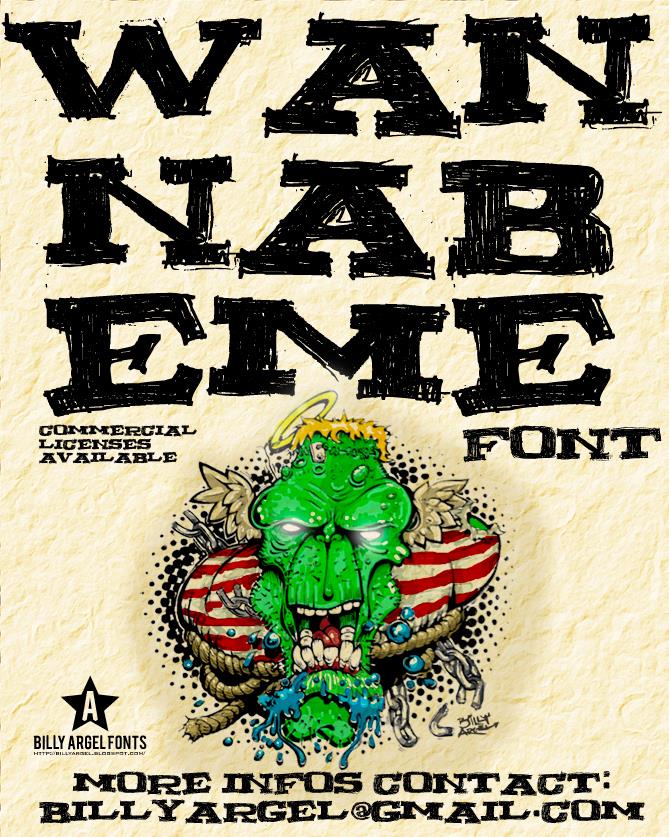
Free WANNABEME Font
Download and enjoy this free wannabeme font. Cool typeface to showcase your designs in a modern way. Go give some love to Font Space for creating this top-notch free font. Easily amaze your audience with this cool font and make your graphic designs pop up from the crowd.